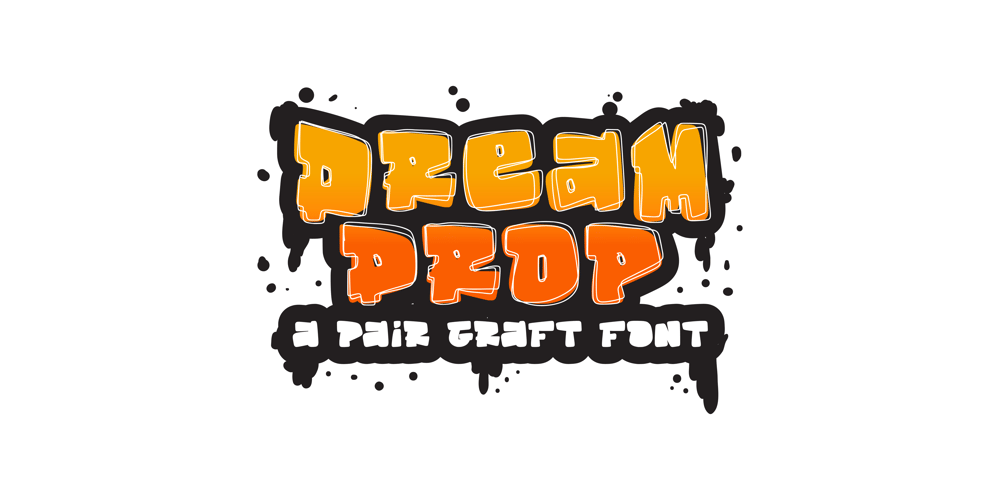
Dream Drop Font Family was designed by Dicky Fuadi, Cherly Nugroho and published by Ethylene. Dream Drop contains 2 styles and family package options. Dream Drop is a typeface inspired by the street graffiti art style. Dream drop consists of 2 styles, regular and outline version. This typeface is suitable for your various design needs. such as posters, book and magazine covers, packaging, merchandise, brochures, YouTube thumbnail, social media post, streetwear and so on.Use this display typeface to add a special street graffiti art touch to any design idea you can think of!